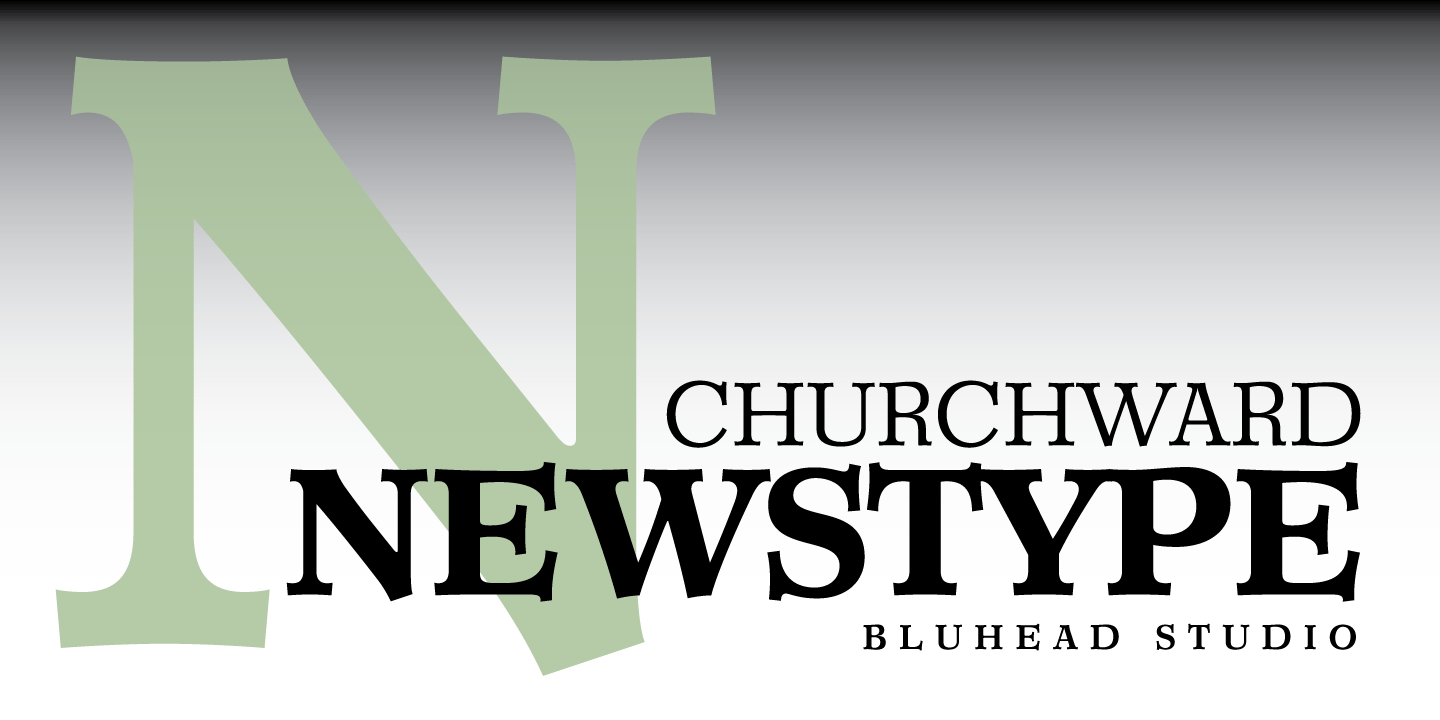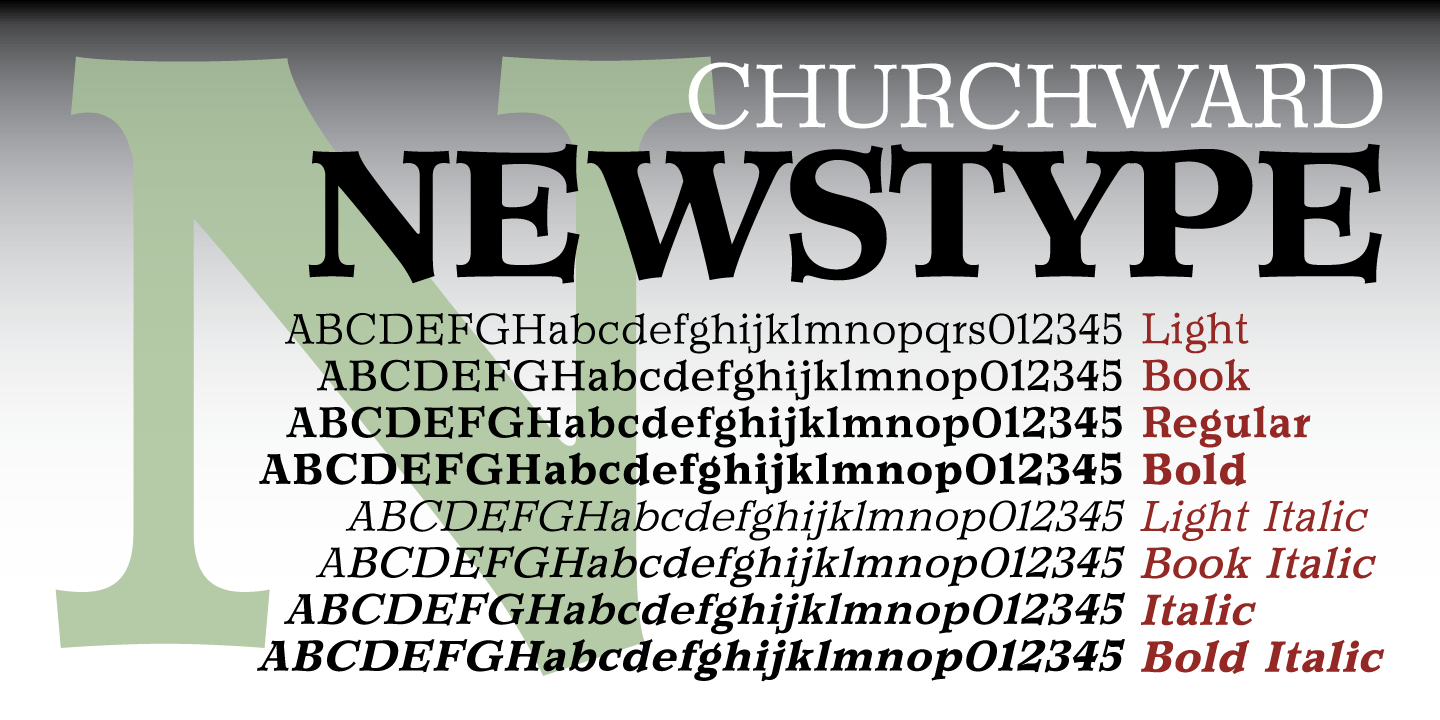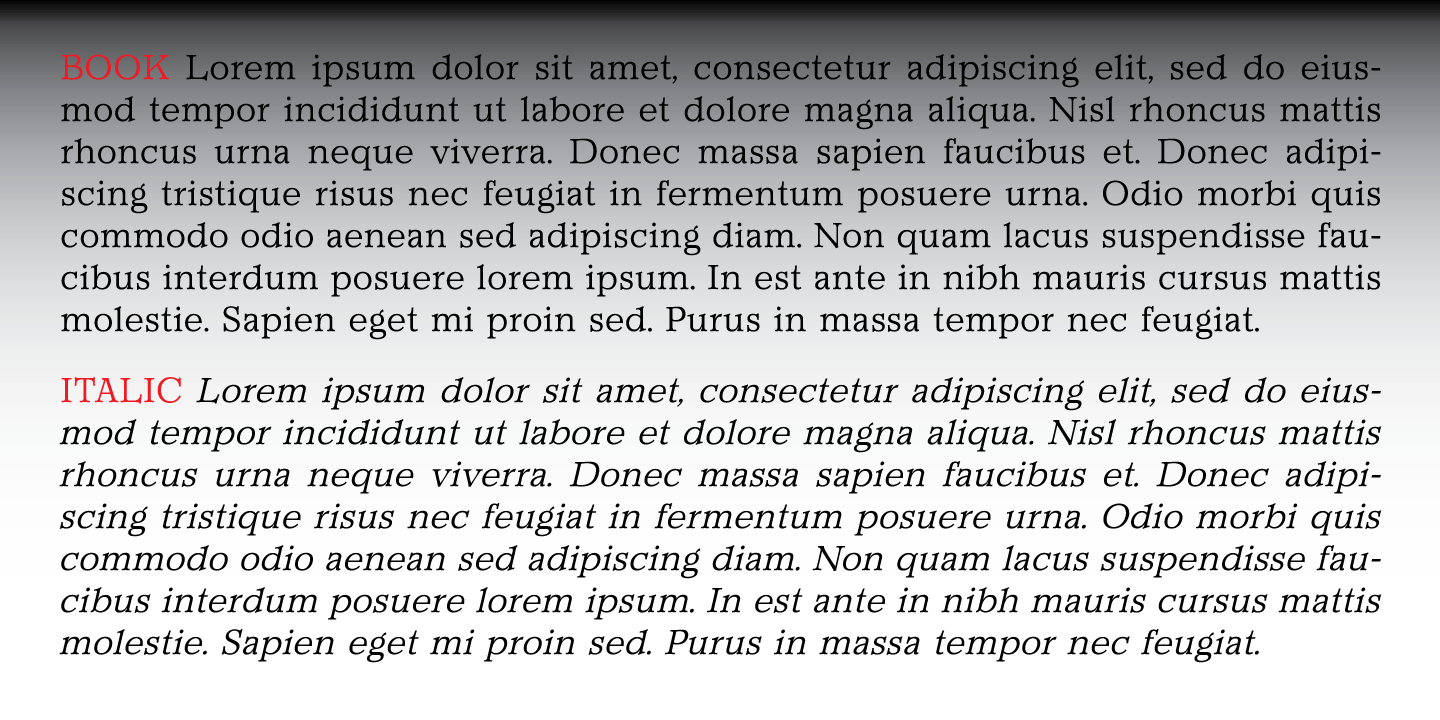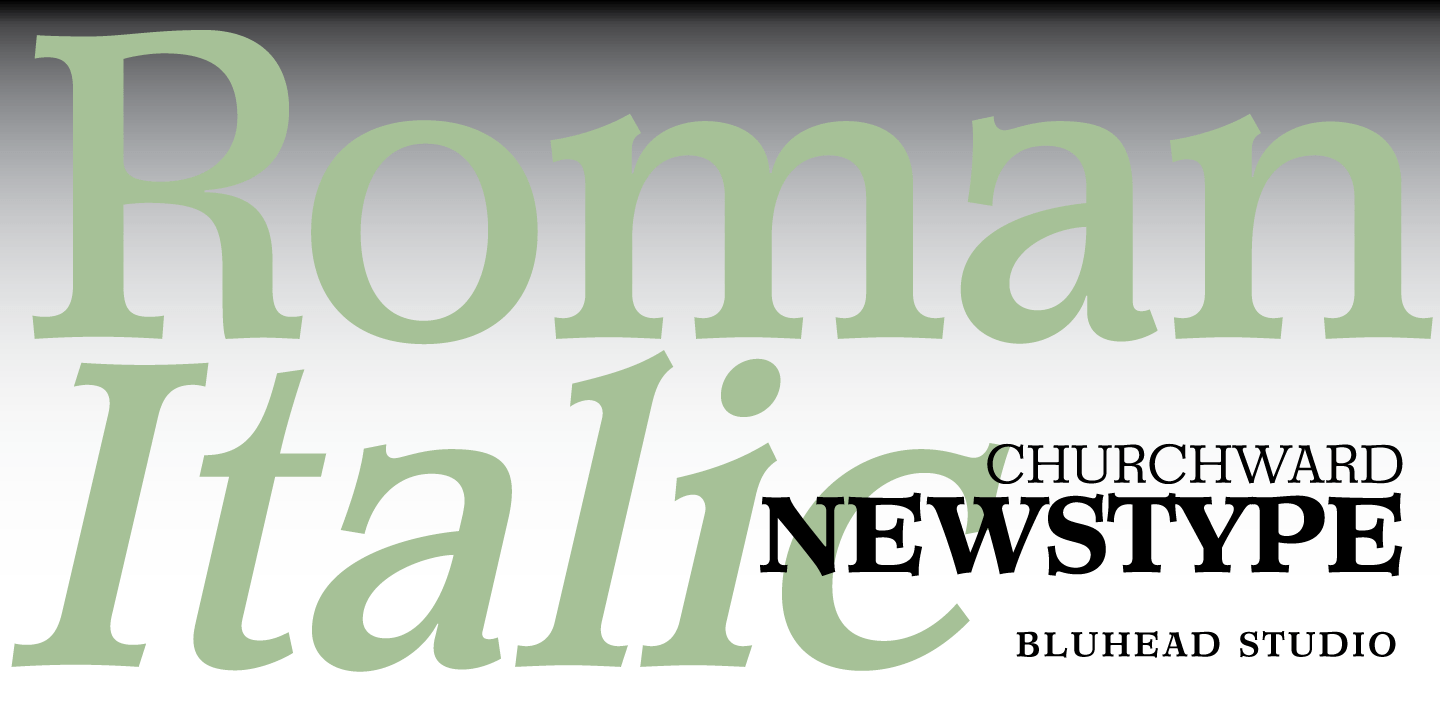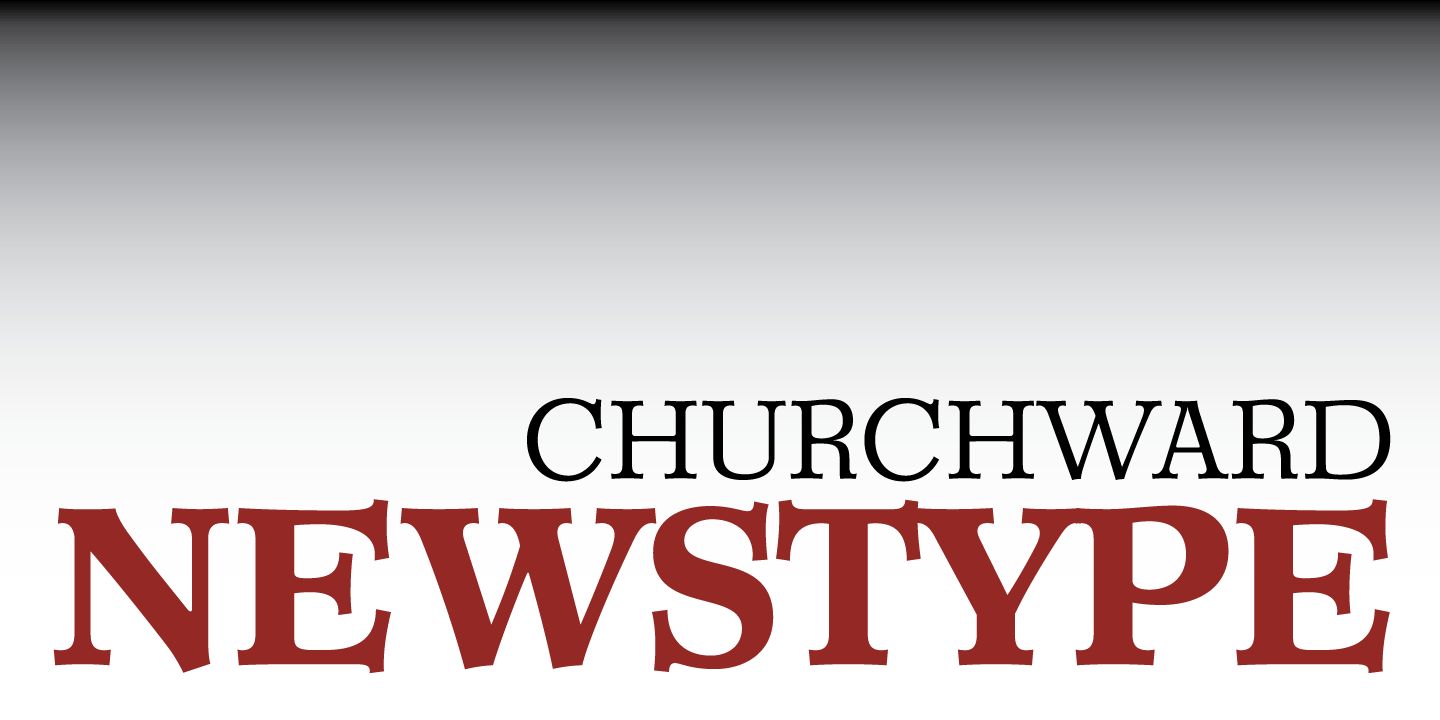
Churchward Newstype
Font Family by BluHead Studio
Churchward Newstype is a workhorse text family, designed by the late Joseph Churchward back in the early 2000’s. If you’re familiar with Churchward’s typefaces, you might know that he always brought a little something quirky to his designs. Churchward Newstype doesn’t disappoint. The exaggerated concave serifs make a statement that is subtle, yet gives the typeface a unique flavor. The proportions and scale of the letters lend themselves to very good legibility in text applications, and the Bold weights are strong enough for headlines. Churchward Newstype is good for text copy, and headlines, and at giant point sizes, great for adding emphasis to posters! The Churchward Newstype family has four weights, Light to Bold, with 13 degree slanted italics. Each font has a second set of tabular figures. Each weight has an extended character set that supports most Western and Eastern European languages.